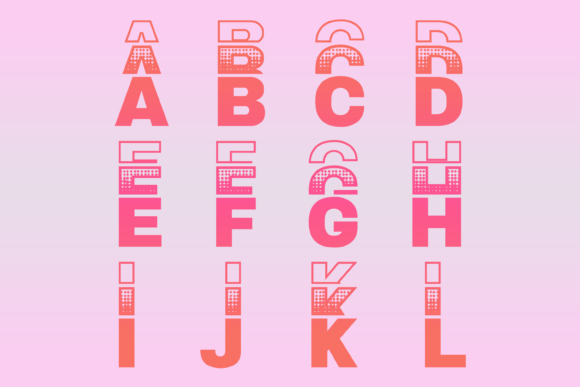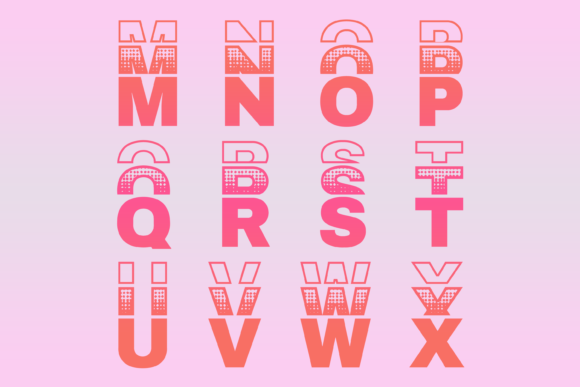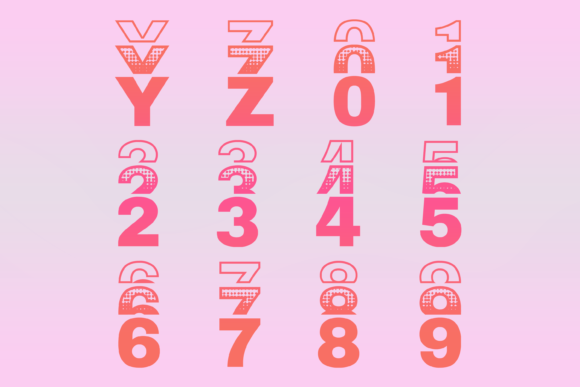
Introduction to Pale Font
Have you ever been working on a creative project, only to feel like something’s missing? The perfect font can make all the difference in elevating your design from ordinary to extraordinary. For many designers, finding the right font can be a challenge, but today we’re excited to introduce you to a game-changing design resource: the Pale Font.
| 📌 Product Name | Pale Font |
| 👤 Author | WADLEN |
This incredibly cool display font is perfect for adding a touch of elegance to your custom designs, DIY crafts, or any other creation that requires a lovely touch. With its high-quality design and transparent background, the Pale Font is an excellent choice for designers looking to add a professional touch to their work.
Key Features of Pale Font
- High-quality, free font for creative projects with a unique, elegant design.
- Transparent background, making it ideal for use on any background or image.
- High-resolution font, suitable for use in large-scale designs, such as billboards or posters.
- Designed for use in a variety of creative projects, including logos, branding, and typography-based art.
Honest Review: Pale Font
I recently stumbled upon the Pale Font and was excited to dive in and see what it had to offer. As a designer, I’m always on the lookout for high-quality design resources that can help bring my creative projects to life.
What works well about Pale Font is its versatility. The font features a transparent background, making it easy to customize and use in a variety of settings. The design is clean and elegant, making it perfect for a wide range of creative projects. Additionally, the font is free to download, which is a huge plus in my book.
- Transparent background for customization
One thing that might be a limitation is that the font is a bit limited in terms of styles and variations. It’s a simple, one-style font, which might not be ideal for designers who need a bit more flexibility. However, for simple projects, it’s a great choice.
Overall, I’m impressed with Pale Font. It’s a great addition to any designer’s toolkit, and it’s perfect for those looking for a simple, high-quality font for their creative projects.
Pale Font
The Pale Font is a high-quality design resource ideal for creative projects that require a unique and subtle touch. With its transparent background, this font can be easily integrated into various design platforms.
The Pale Font is ideal for use in wedding invitations, branding materials, and other creative projects where a high-quality, subtle font is required.
Tips for Getting the Most Out of Pale Font
For optimal results, pair the Pale Font with a transparent background to create a seamless design. Experiment with different font sizes and colors to find the perfect balance for your project.